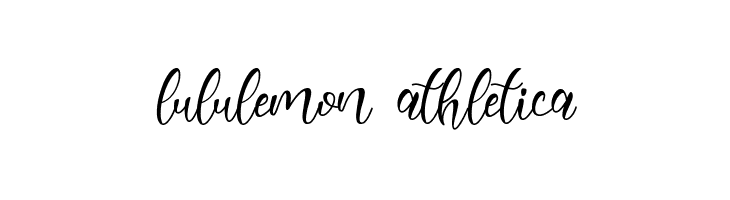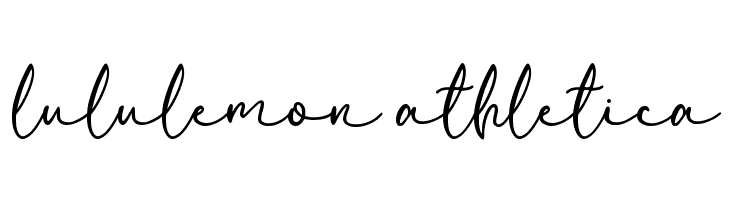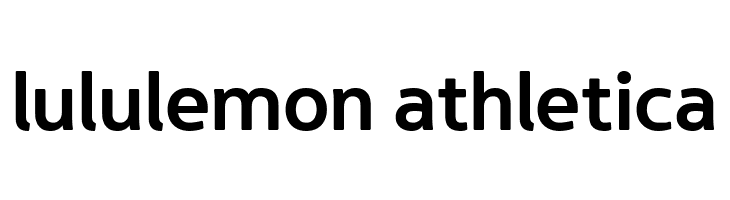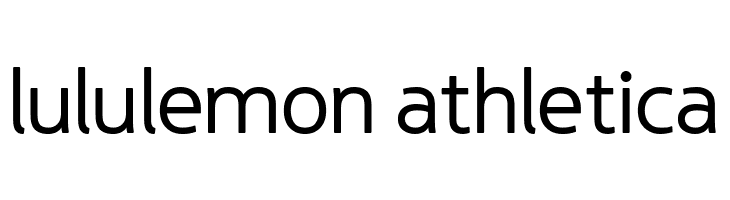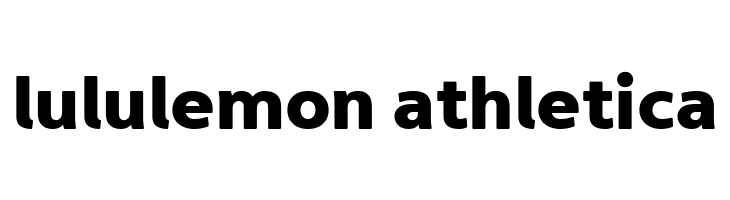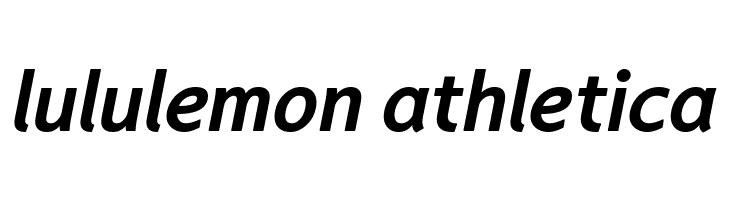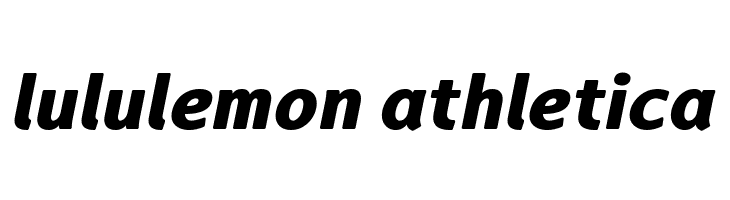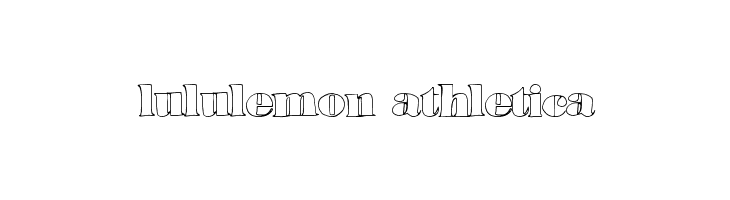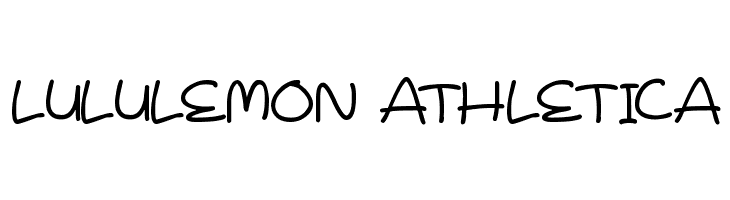
• Aleda Monoline Bold
A playful, bold monoline font with a cursive, handwritten style.
• ALEECIA
A playful, hand-drawn font with tall, narrow characters and a whimsical style.
• ALEECIA
A playful and whimsical font with elegant swirls and loops.
• Aleena (demo)
A bold, elegant script font with smooth, flowing curves.
• Aleena Groovy FREE
A bold, retro-inspired font with playful, decorative elements.
• AleenaGroovyFREE
A bold, decorative font with playful patterns and a retro vibe.
• aleera
A bold, expressive handwritten font with fluid strokes and playful curves.
• Alef Bold
A bold, modern sans-serif font with consistent stroke width and normal spacing.
• Alef Bold
A bold, modern sans-serif font with excellent readability and balanced proportions.
• Alef Regular
A clean, modern sans-serif typeface with balanced spacing and consistent stroke width.
• Alefbaa
A bold, geometric font ideal for modern headlines and logos.
• AleFont
• Alegant Script
An elegant, flowing cursive script with intricate loops and smooth connections.
• AlegantScriptRegular
A graceful and elegant cursive script font with a modern touch.
• Alegra
A dynamic and flowing script font with elegant curves and smooth strokes.
• Alégre Sans
A bold, modern sans-serif font with strong vertical lines and uniform strokes.
• Alegre Sans Regular
A bold, modern sans-serif font with a condensed and professional style.
• Alegreya
A dynamic serif typeface with a blend of traditional elegance and modern style.
• Alegreya Black
A bold serif font with strong contrast and classic appeal.
• Alegreya Black Italic
A bold, italic serif font with strong strokes and a dynamic presence.
• Alegreya Bold
A bold, classic serif font with strong serifs and elegant curves.